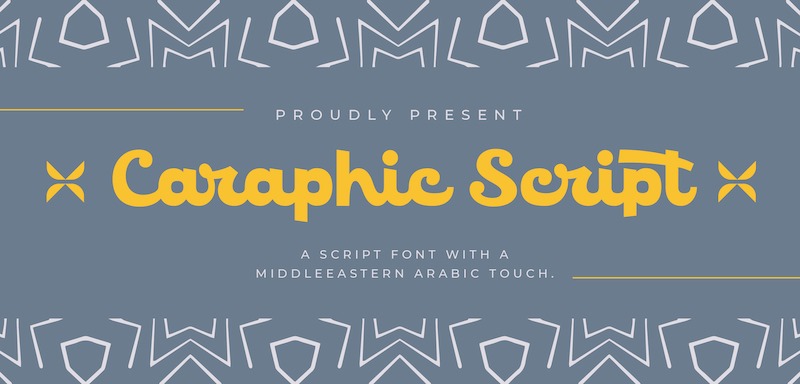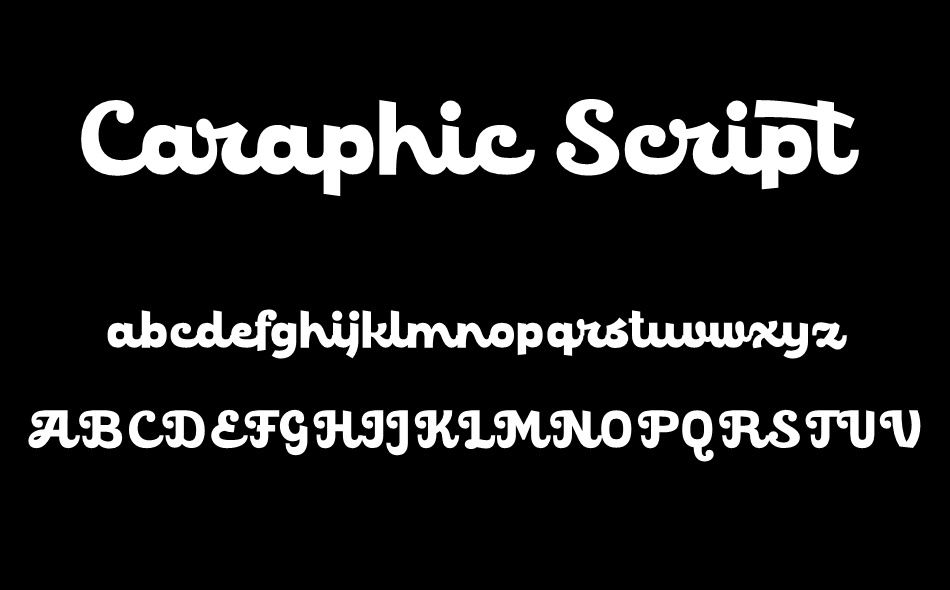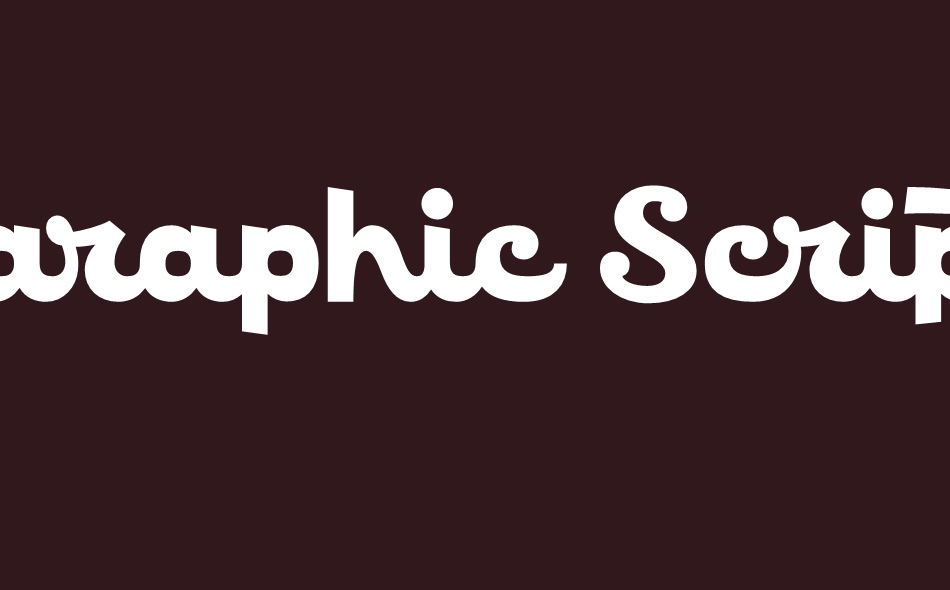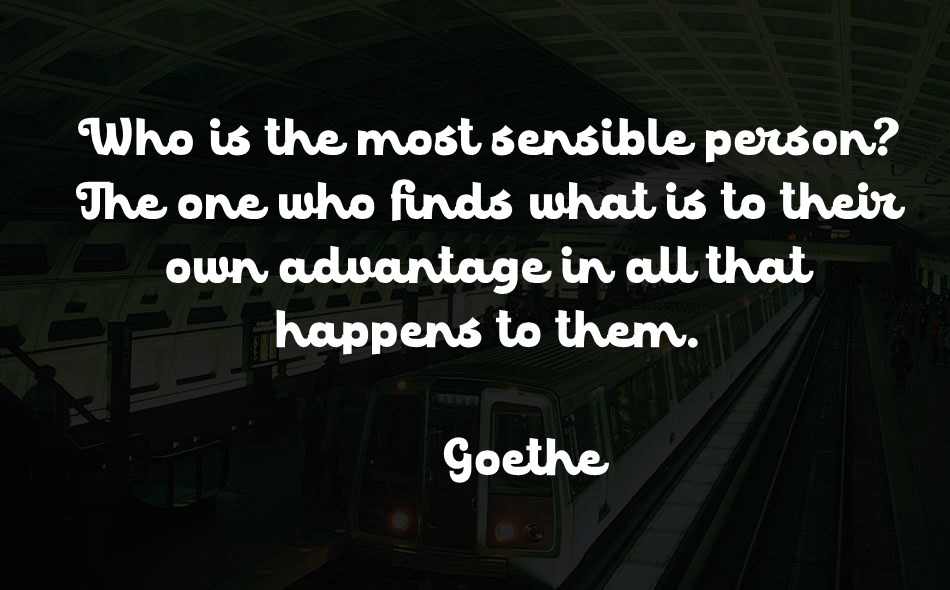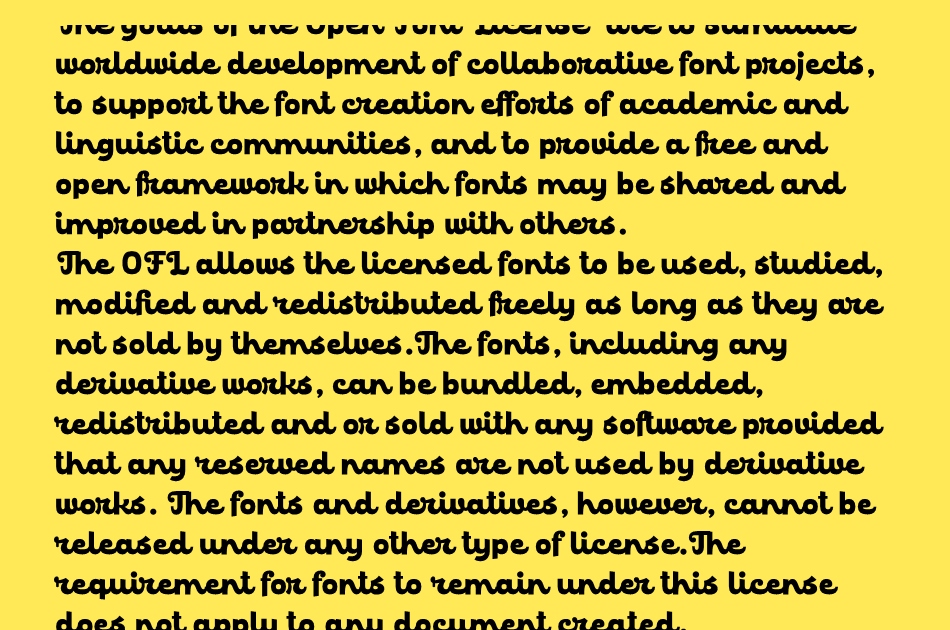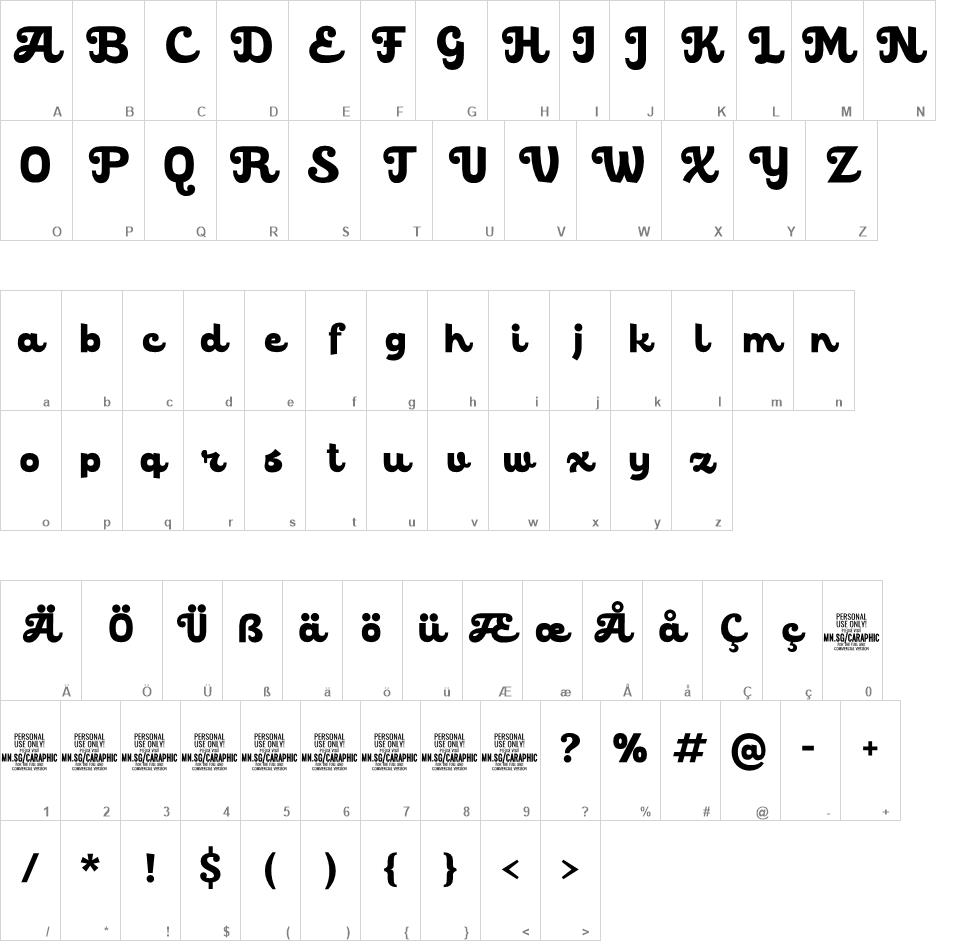
Caraphic Script font
Caraphic Script marries the crisp elegance of script typefaces with the beauty of Middle Eastern design.
Its unique character emerges from its seamless support for both Latin and Arabic scripts, bridging worlds and cultures in a single, harmonious typeface.
Caraphic Script marries the crisp elegance of script typefaces with the beauty of Middle Eastern design.
Its strokes, bold and assertive, dance with a weightiness that commands attention, yet it retains a sharp clarity that ensures readability. While undeniably decorative, there's an inherent professional balance in its design, making it a top pick for logotypes and branding.
Its unique character emerges from its seamless support for both Latin and Arabic scripts, bridging worlds and cultures in a single, harmonious typeface. This isn't just a font; it's a global statement, speaking to audiences far and wide with unmatched sophistication.
The font is built with advanced OpenType functionality and has a guaranteed top-notch quality, containing stylistic and contextual alternates, ligatures, and more features; all to give you full control and customizability. It has extensive lingual support, covering all Arabic and Latin-based languages, from Northern Europe to South Africa, from America to South-East Asia. It contains all characters and symbols you'll ever need, including all punctuation and numbers.
Caraphic Script's unmatched beauty and versatility are crafted with precision by Mans Greback. It stands as a testament to his skill in intertwining emotion, culture, and utility within typography. With each font he creates, Greback solidifies his reputation for producing designs that resonate deeply while providing exceptional functionality for professionals everywhere.